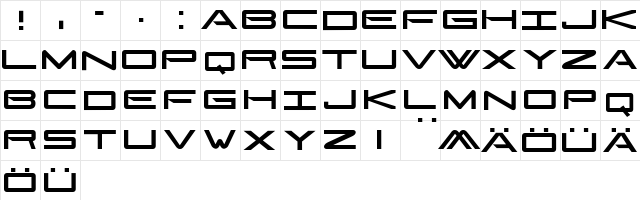
GonzalesSans Regular
Design Context for GonzalesSans Typeface
GonzalesSans takes a measured approach to typography — its balanced proportions and neutral character make it a reliable workhorse for both digital and print work.
Pro Tip: Use GonzalesSans in both headline and body roles to test its range before committing to a single application.